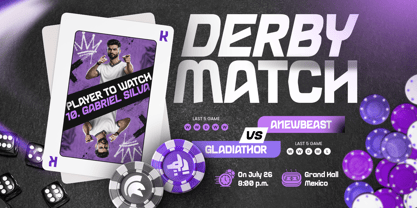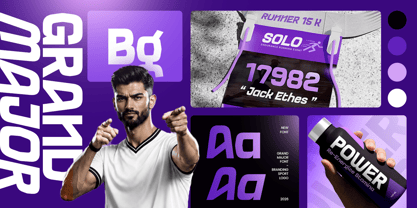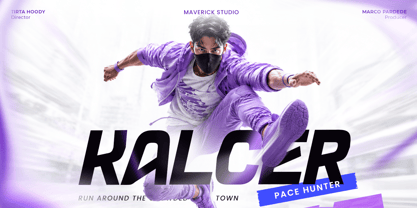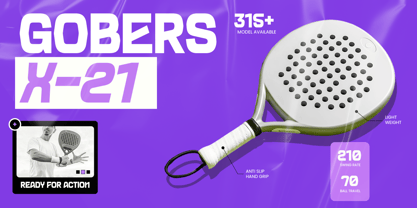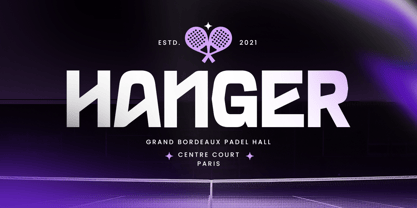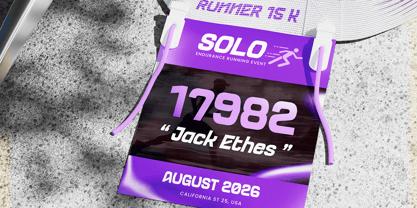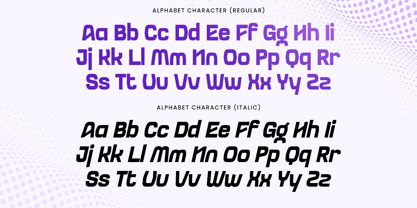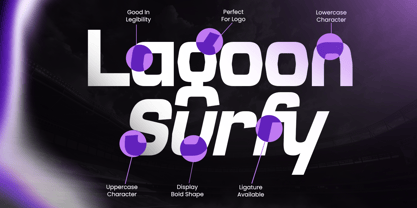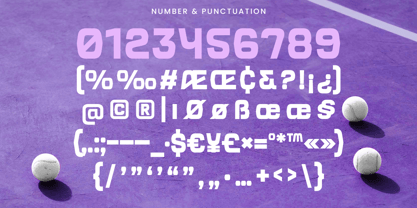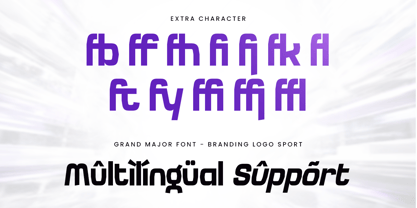
Grand Major
The Grand Major Font Family was designed by Zamroni Hamzah and published by Sensatype Studio. Grand Major contains 2 styles and family package options. More about this family
GRAND MAJOR is a bold branding logo sport font created for designs that demand strength, speed, and confident visual impact. Its powerful letterforms and energetic structure give it a competitive personality, making it ideal for modern sports branding, athletic identities, and performance-driven projects.
Perfect for team logos, jersey graphics, racing visuals, esports branding, fitness campaigns, posters, headlines, signage, and promotional designs, GRAND MAJOR delivers a strong presence in both digital and print applications. Its assertive style also works well for apparel, social media graphics, event branding, packaging, and sports merchandise.
Whether you are building a professional team identity, a gym brand, a motorsport campaign, or a bold athletic logo, this branding logo sport font helps create a memorable and competitive visual language.
GRAND MAJOR – Branding Logo Sport Font Features
• Bold athletic letterforms with strong visual impact
• Designed for sports logos, team branding, and racing graphics
• Ideal for jerseys, posters, signage, and merchandise
• Includes uppercase, lowercase, numerals, and punctuation
• Suitable for both digital and print applications
• OpenType features for flexible typographic styling
• Great for esports, fitness, apparel, and promotional design
Multilingual Support
Afrikaans, Albanian, Asu, Basque, Bemba, Bena, Breton, Chiga, Cornish, Dutch, English, Estonian, Filipino, Finnish, Friulian, Galician, German, Gusii, Indonesian, Irish, Italian, Kabuverdianu, Kalenjin, Kinyarwanda, Luo, Luxembourgish, Luyia, Machame, Makhuwa-Meetto, Makonde, Malagasy, Manx, Morisyen, North Ndebele, Nyankole, Oromo, Portuguese, Quechua, Romansh, Rombo, Rundi, Rwa, Samburu, Sango, Sangu, Scottish Gaelic, Sena, Shambala, Shona, Soga, Somali, Spanish, Swahili, Swedish, Swiss, and more.